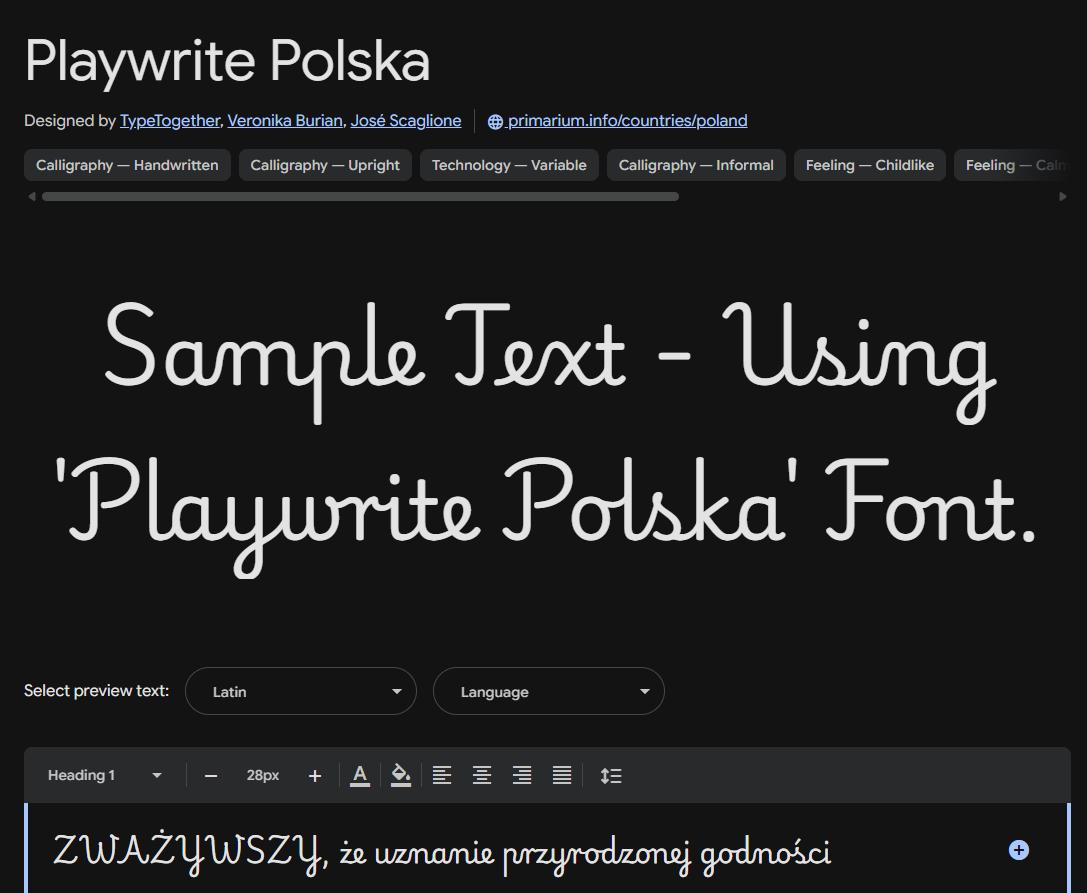
Engineered by Veronika Burian and José Scaglione of TypeTogether, Playwrite Polska functions as a sophisticated bridge between traditional pedagogy and modern font technology, specifically tailored to the cursive standards of the Polish educational system. This single-axis variable typeface leverages precise weight interpolation to facilitate graduated levels of handwriting instruction, ensuring that glyph construction-from initial ductus to complex joining behaviors-remains pedagogically accurate across various digital interfaces. By synthesizing regional calligraphic models with fluid OpenType features, the designers have created a semantically robust tool that optimizes stroke weight and terminal consistency, providing a high-fidelity typographic environment for early learners while maintaining the technical flexibility inherent in contemporary variable font architecture.
Playwrite Polska represents a sophisticated evolution in pedagogical typography, functioning as a high-performance variable font designed to bridge the gap between structured upright calligraphy and the informal handwritten aesthetics utilized in Polish primary education. By leveraging modern variable technology, the typeface offers a dynamic design space that captures a nostalgic vintage sensibility while maintaining a rugged, tactile texture that feels both calm and deeply humanistic. Its architectural DNA prioritizes legibility through fluid stroke modulation and playful glyph construction, evoking a happy, childlike innocence that transforms digital interfaces into approachable, informal environments where the art of cursive remains both technically precise and stylistically expressive.
Playwrite Polska, a variable font engineered by Veronika Burian and José Scaglione of TypeTogether, is fundamentally unsuitable for high-density technical interfaces or high-stakes legal documentation where cognitive load must be minimized through neutral typographic architecture. While its single-axis variability allows for fluid adjustments in weight, the typeface is rooted in pedagogical script models designed for primary education, meaning its idiosyncratic joinery and complex cursive ductus conflict with the requirements of rapid-scan legibility in industrial safety signage or medical labeling. The specific ligatures and terminal strokes inherent to the Polish school-hand model introduce character-to-character interference at small point sizes, compromising the optical clarity required for WCAG-compliant digital accessibility. Consequently, using this typeface in a corporate or analytical context would disrupt the vertical rhythm and character recognition necessary for processing complex data sets, as its script-based counters and fluid stroke modulation are optimized for handwriting instruction rather than the standardized, high-speed readability demands of modern information systems.
Playwrite Polska offers a range of weights including ExtraLight, Light, Regular, and Thin versions to suit different creative needs. The family utilizes a variable font format, allowing designers to interpolate the weight axis from 100 to 400 for precise typographic control.
The font is specifically engineered to include all essential Polish glyphs such as ą, ć, ę, ł, ń, ó, ś, ź, and ż. Comprehensive character mapping ensures full compatibility with the Latin-2 encoding standard required for authentic West European and Slavic linguistic representation.
Joining versions simulate fluid cursive handwriting through linked strokes, while non-joining versions maintain distinct gaps between individual characters. Advanced OpenType 'liga' and 'calt' tables manage the contextual positioning to ensure that glyph transitions remain visually consistent across varying kerning pairs.
While highly expressive, the font is primarily intended for display use, headers, or short pedagogical notes rather than dense paragraphs. The high frequency of decorative ascenders and descenders can create visual noise, significantly reducing reading speed when body text exceeds a 14px threshold.
Playwrite Polska pairs exceptionally well with clean, geometric sans-serifs like Montserrat or Roboto to provide a balanced visual hierarchy. Utilizing a high x-height typeface as a companion helps mitigate the organic irregularity of the script, maintaining a cohesive 1:1.5 contrast ratio in UI layouts.
The typeface features multiple stylistic sets that allow users to swap specific character forms for a more personalized handwriting appearance. Accessing the 'salt' (Stylistic Alternates) feature reveals unique glyph variants that increase the randomization effect, mimicking the natural entropy of human penmanship.
Legibility tends to decrease at smaller scales due to the intricate thin strokes and rhythmic loops characteristic of the script. Rasterization issues often occur below 12pt, where the stroke contrast ratio fails to meet the WCAG 2.1 accessibility requirements for contrast and clarity.
Cursive connections are managed through complex contextual alternates that trigger different stroke endings based on the following letter. The font utilizes the 'calt' feature to dynamically swap initial, medial, and terminal glyph forms, ensuring a seamless visual flow across the baseline.
The font is optimized for modern high-resolution screens and performs well when rendered through standard browser engines. Detailed hinting and the use of vector-based outlines ensure that the intricate junctions remain sharp even when rendered on low-DPI displays via subpixel antialiasing.